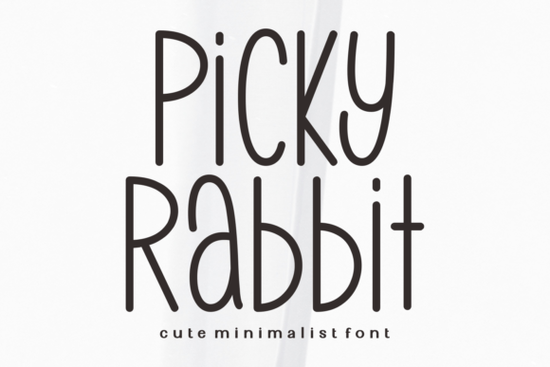
If you're looking for a font that feels both playful and personal something that adds warmth without overwhelming your design the Picky Rabbit Font might be exactly what your next project needs. Designed by the Buddy Friendly Team, it blends hand-drawn charm with clean readability, making it ideal for everything from birthday cards to classroom printables.
What stands out about Picky Rabbit is how effortlessly it shifts tone depending on context. Use it for a cheerful kids’ party invitation, and it radiates fun. Apply it to a self-care journal cover or mental wellness quote graphic, and it softens into something thoughtful and kind. That emotional flexibility makes it especially useful for small businesses, teachers, and crafters who create content across different moods and seasons.
When should you use Picky Rabbit Font?
This typeface shines in projects where personality matters more than rigid formality. Think:
- Kids’ crafts and classroom materials – Its rounded, friendly letterforms feel approachable for young audiences.
- Seasonal printables – Whether it’s a Valentine’s Day card, back-to-school checklist, or autumn-themed wall art, Picky Rabbit adapts without losing its character.
- Personalized gifts – Mugs, tote bags, or greeting cards featuring handwritten-style text benefit from its intimate, human touch.
- Mental health or self-love content – The gentle curves and open spacing lend a calming presence to affirmations or journal prompts.
It’s not meant for dense body text or corporate reports but that’s not a flaw. Like other expressive display fonts such as Groovy Chunky or Retro Funky, Picky Rabbit works best when used intentionally for headlines, quotes, or short phrases.
How does it compare to similar fonts?
Among Creative Fabrica’s collection of display fonts, Picky Rabbit holds a unique middle ground. It’s less bold than Rustpress, which leans into vintage grit, and more organic than Varsity Reborn, whose athletic energy suits sports themes. It also avoids the exaggerated quirks of Vertical Dentist, opting instead for subtle irregularities that mimic real handwriting.
That balance between structure and spontaneity is why it pairs well with minimalist layouts. You don’t need heavy embellishments to make it work. A simple white background, ample spacing, and maybe a soft watercolor wash are often enough to let the font breathe.
Tips for using it effectively
To get the most out of Picky Rabbit Font, keep these practical ideas in mind:
- Limit uppercase use. The lowercase letters carry the most personality. Save all-caps for very short words like “YES!” or “WOW.”
- Pair it wisely. Combine it with a neutral sans-serif (like Montserrat or Lato) for contrast. Avoid pairing it with other highly decorative fonts they’ll compete rather than complement.
- Adjust tracking slightly. If your software allows, add a touch of letter-spacing (5–10 units) to enhance legibility, especially at smaller sizes.
- Use it seasonally but thoughtfully. Yes, it works for Christmas farm signs and summer beach invites but lean into its emotional tone, not just the occasion. A “You’ve Got This” note in Picky Rabbit feels more genuine than a generic holiday slogan.
For print-on-demand sellers, this font translates beautifully to physical products. Its clear outlines hold up well on mugs, t-shirts, and stickers, and its cheerful vibe aligns with popular trends in home decor and gift markets.
And if you’re creating digital planners or printable worksheets for teachers or therapists, Picky Rabbit adds a layer of warmth that sterile fonts can’t match without sacrificing clarity.
Ready to try it?
If your designs have been feeling a little too polished or impersonal, Picky Rabbit Font offers a gentle nudge toward authenticity. It’s not flashy, but it’s full of heart and sometimes, that’s exactly what your audience needs to see.
- Is this project meant to feel personal, joyful, or comforting?
- Will the text be short enough to showcase the font’s details?
- Do I have a clean layout that lets the font stand out?
If you answered yes to most of these, Picky Rabbit could be your new go-to for adding quiet charm to everyday creativity.